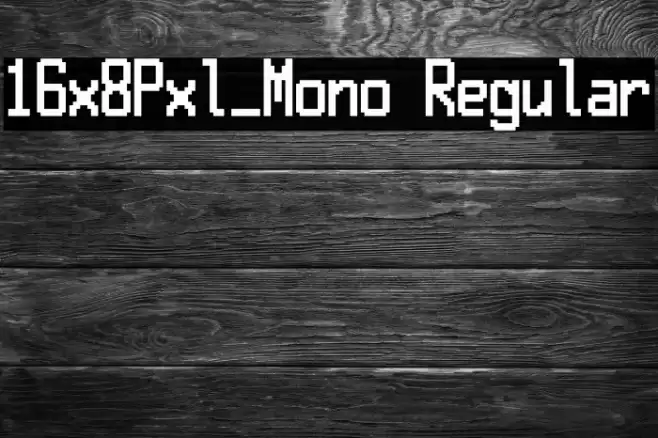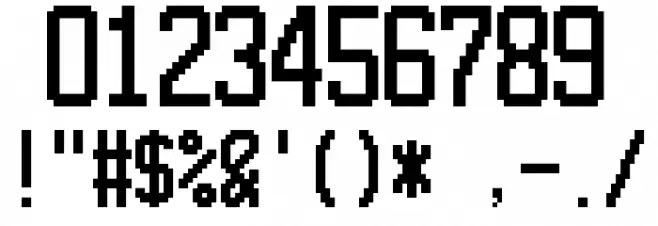
16x8Pxl_Mono Regular Font
16x8Pxl_Mono Regular Description
This font is a pixelated, monospaced typeface that embodies a retro, digital aesthetic reminiscent of early computer screens and video games. Each character is constructed with a uniform grid of pixels, giving it a blocky and geometric appearance. The uppercase and lowercase letters maintain consistent height and width, ensuring a balanced and cohesive look. The numerals and special characters follow the same pixelated style, contributing to the overall uniformity. This font's simplicity and clarity make it highly legible, even at smaller sizes, while its nostalgic charm adds a playful touch to any design.
A pixelated, monospaced font with a retro digital aesthetic from Regular fonts.
- Proposed Projects: Ideal for retro-themed designs, video game graphics, digital art projects, and coding interfaces.
- Overall Style: Retro
- Use Case: Headlines, Digital displays, Coding interfaces